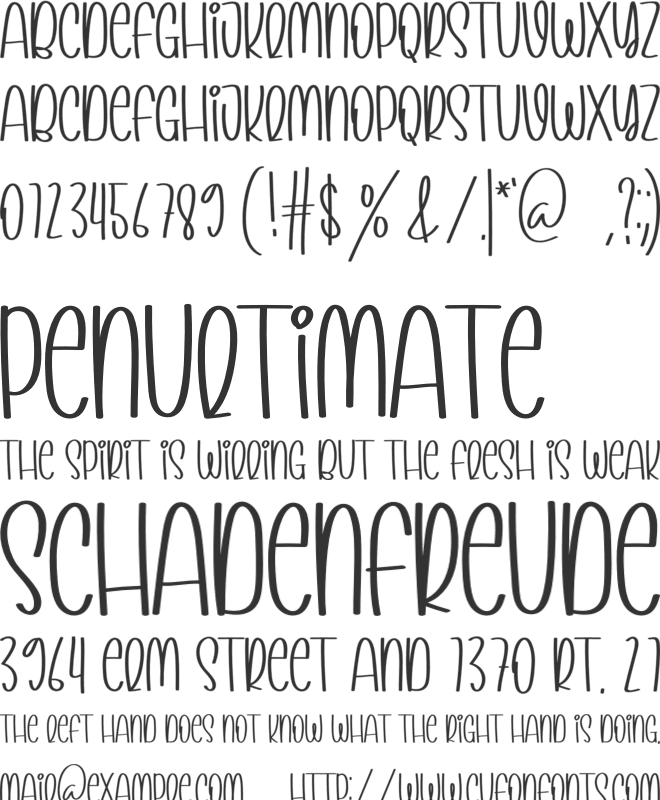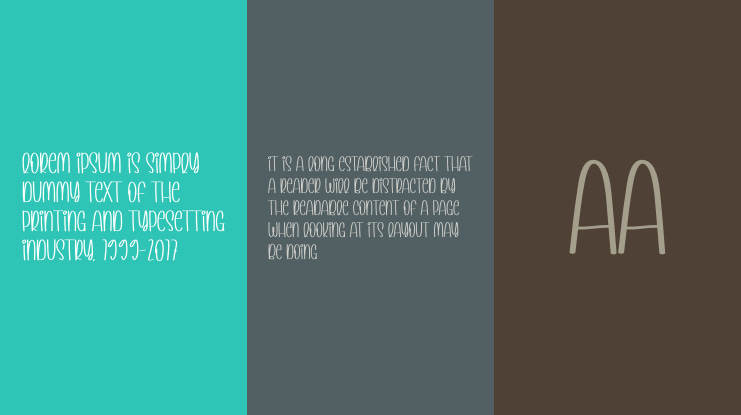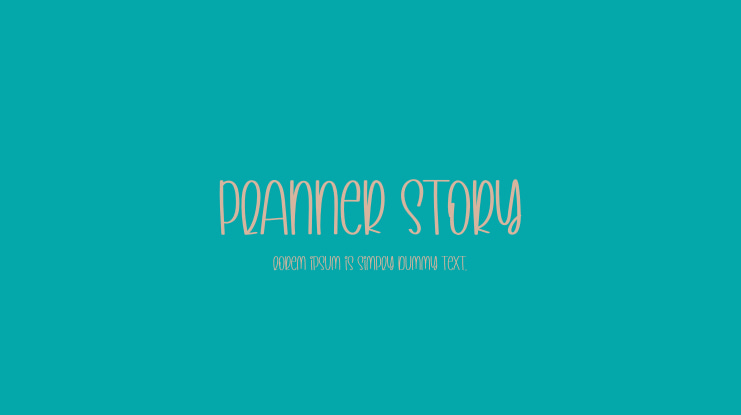
We offer special and creative products that will provide you with an extraordinary experience. Our latest style letters are perfect for various applications such as wall displays, wedding invitations, social media post logos, advertisements, product packaging, designs, labels, photography, watermarks, invitations, stationery, and any project that requires an elegant handwriting font.